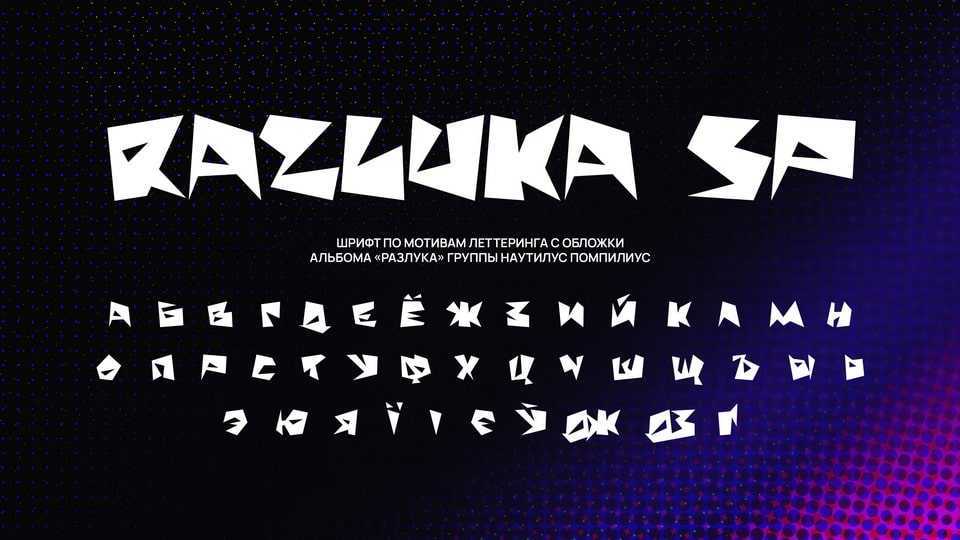
Download Razluka SP font, a display typeface based on the cover of the album Nautilus Pompilius – “Razluka”. The font is well suited for headlines, catchy triggers, when you need to highlight something with a strong accent.
Designer: Sasha Pavljenko